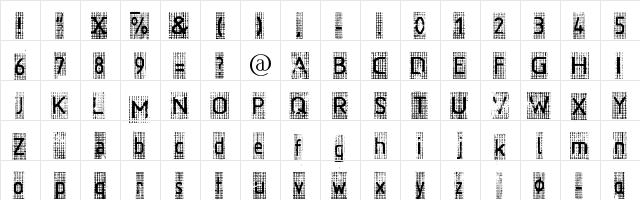
rr Regular
Design Context for rr Typeface
rr is a composed and adaptable typeface that performs quietly and consistently across a wide range of design contexts.